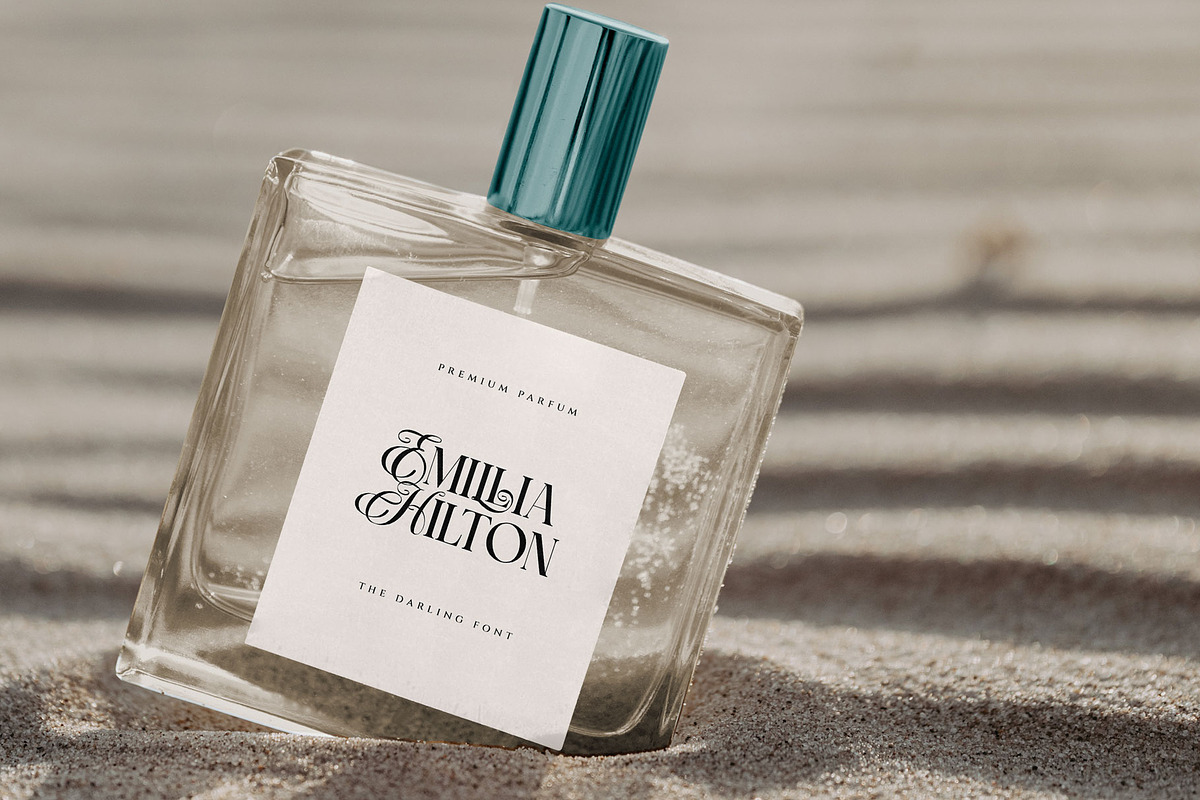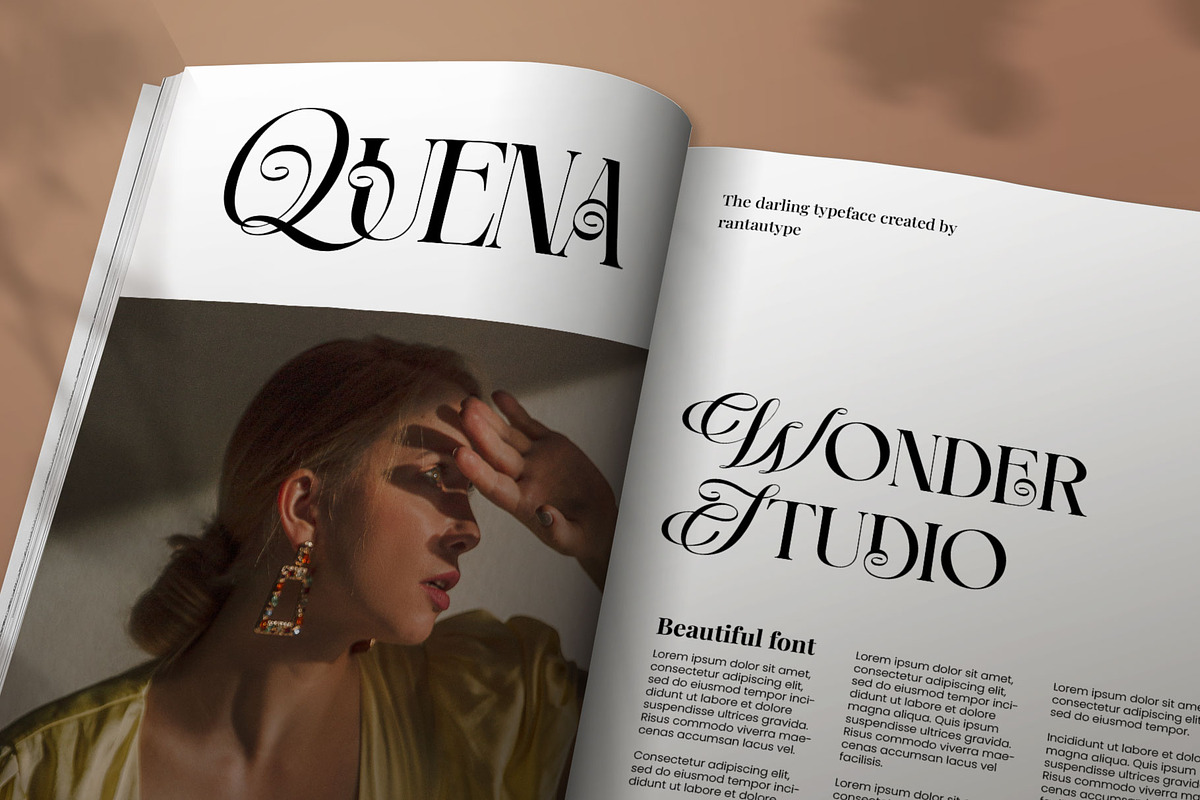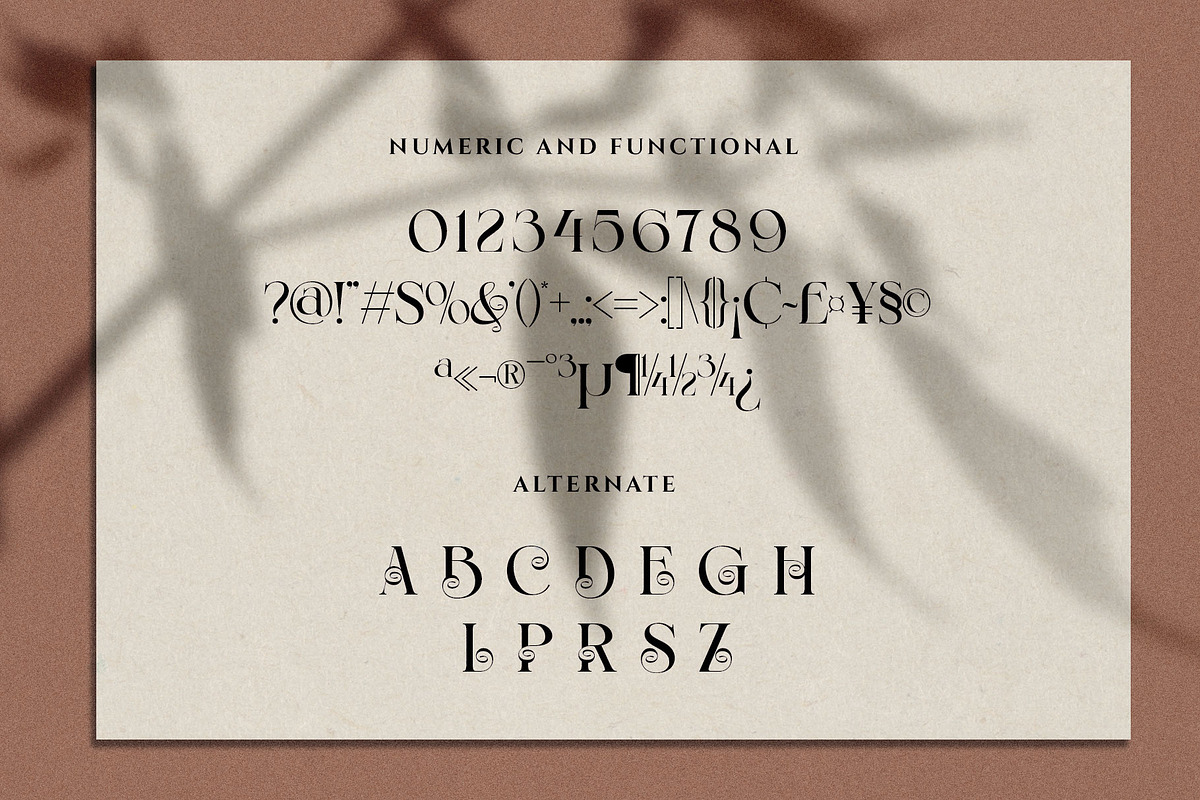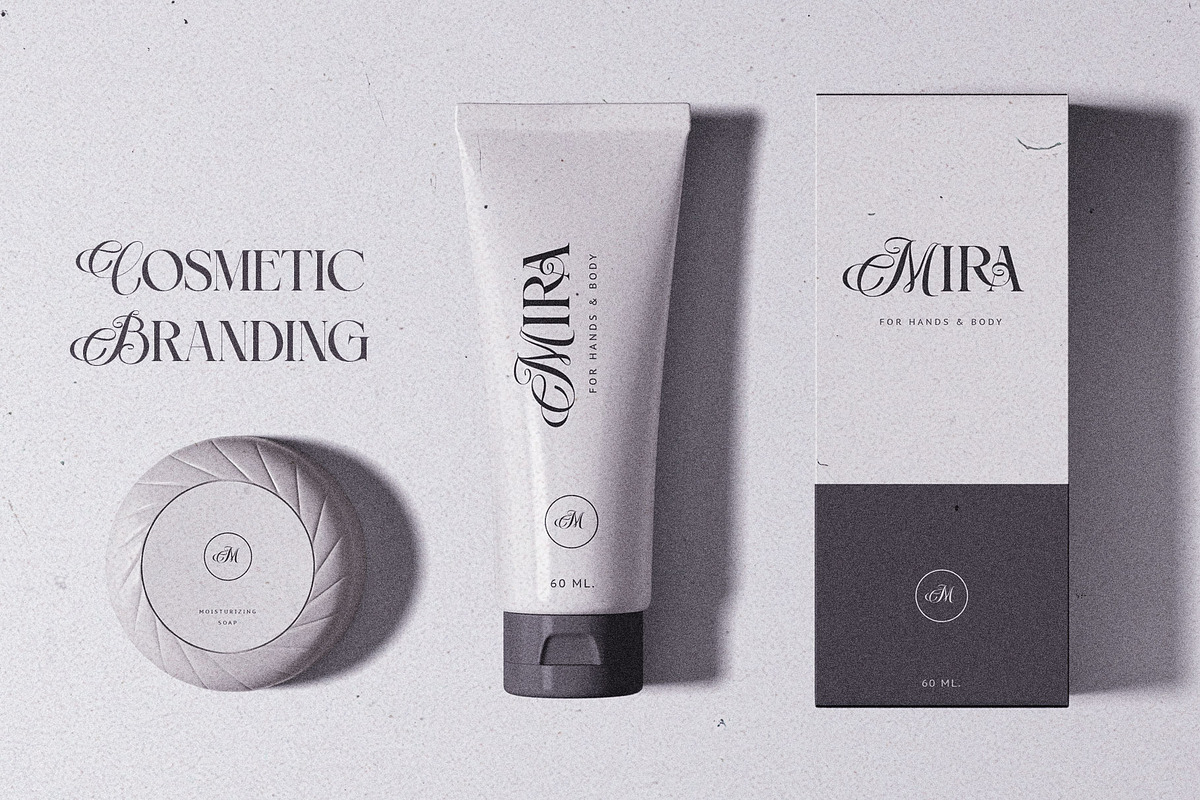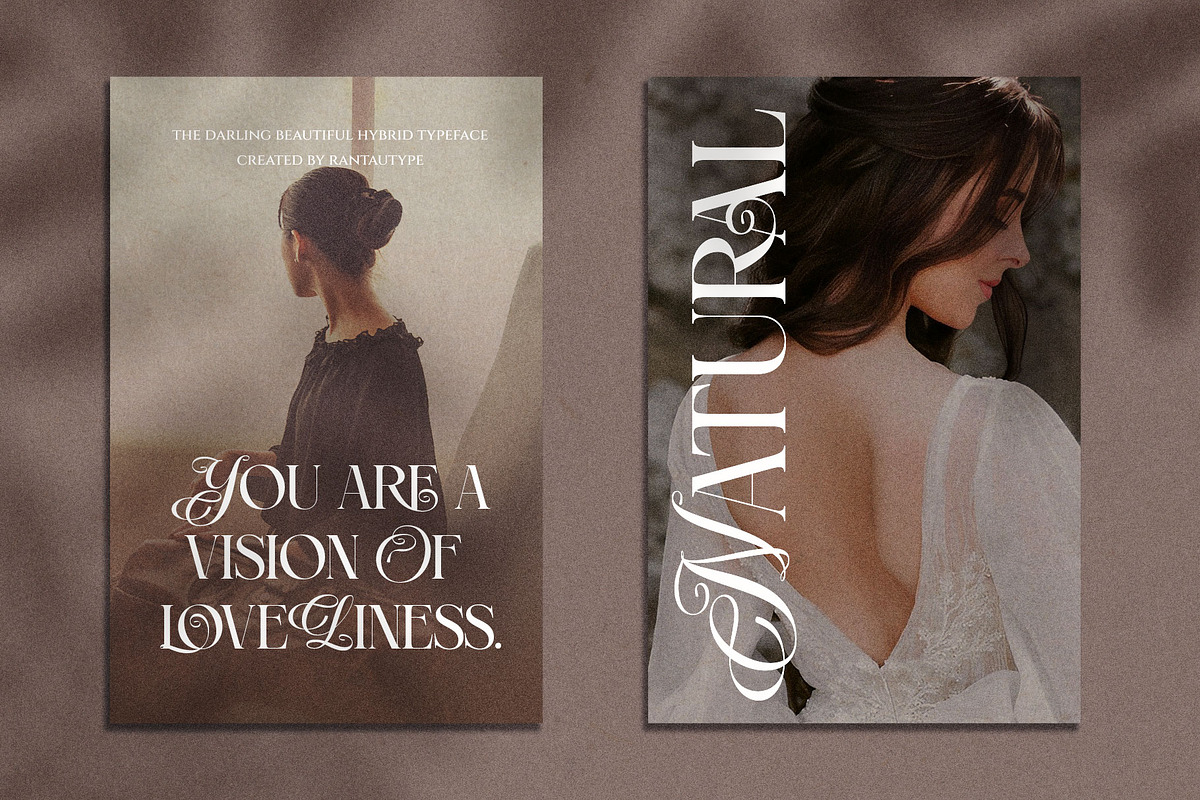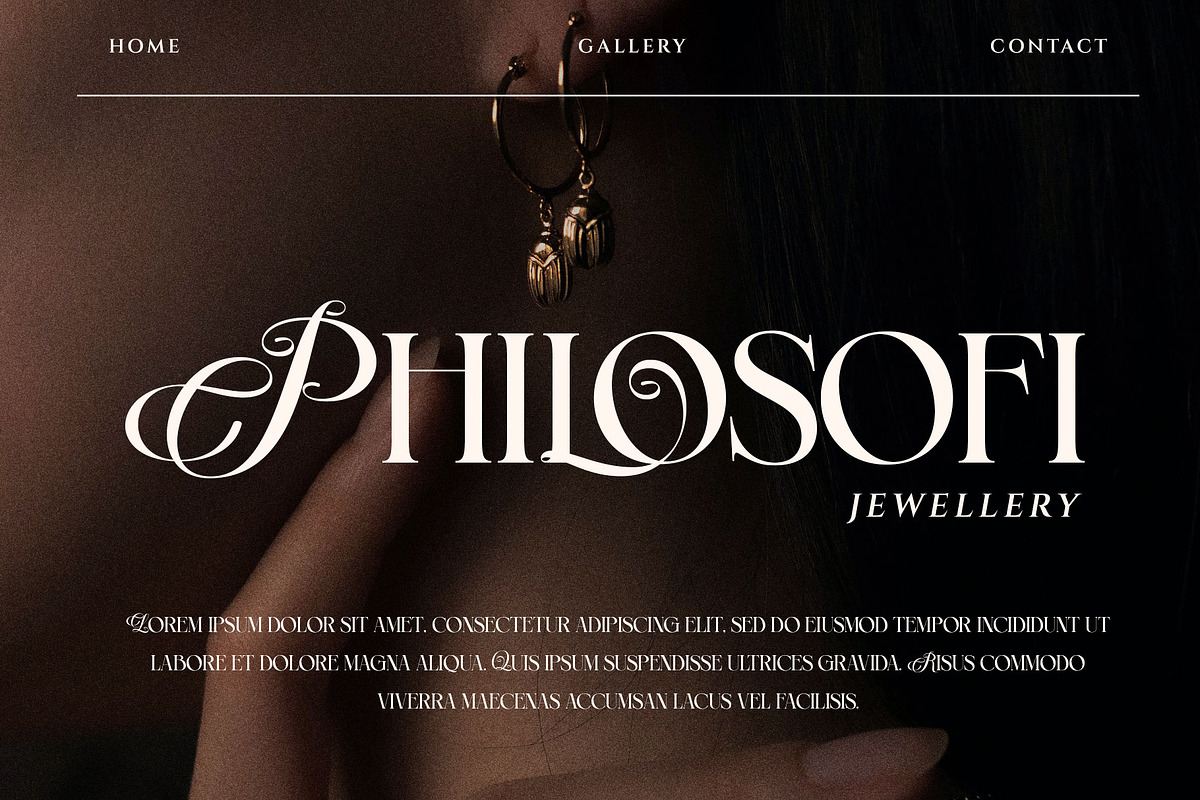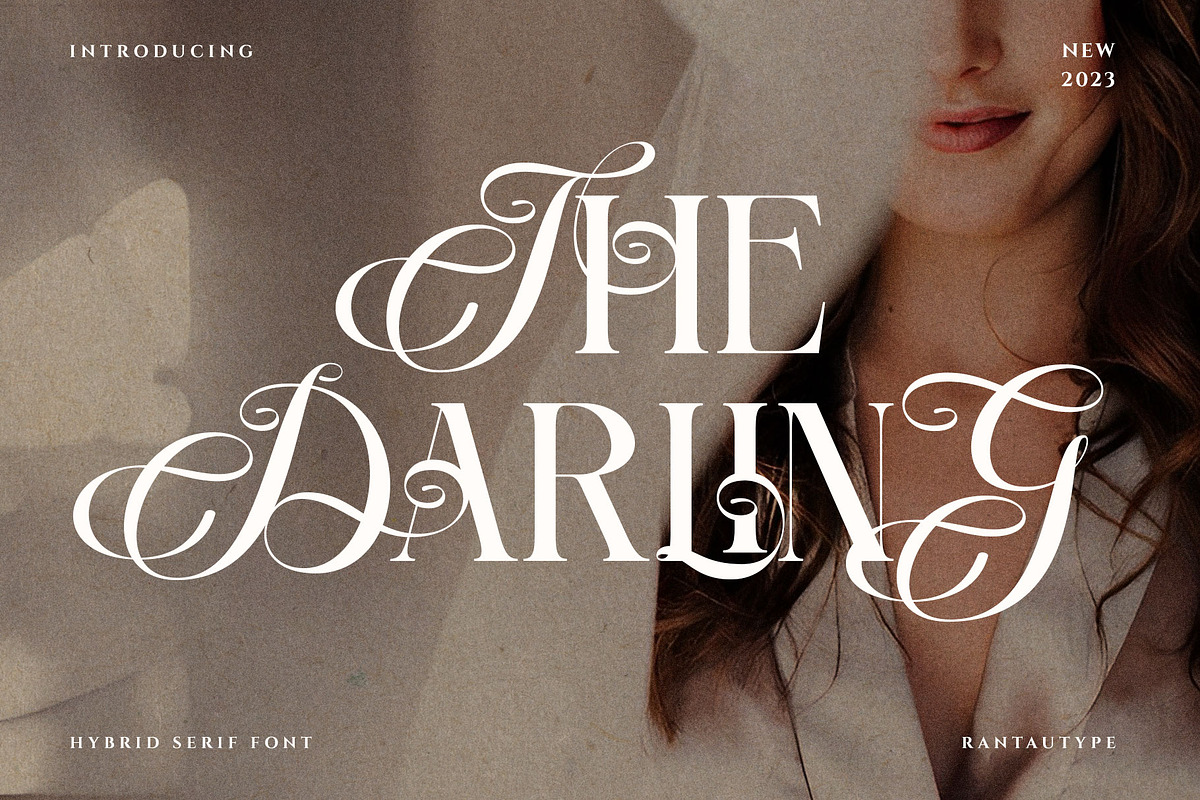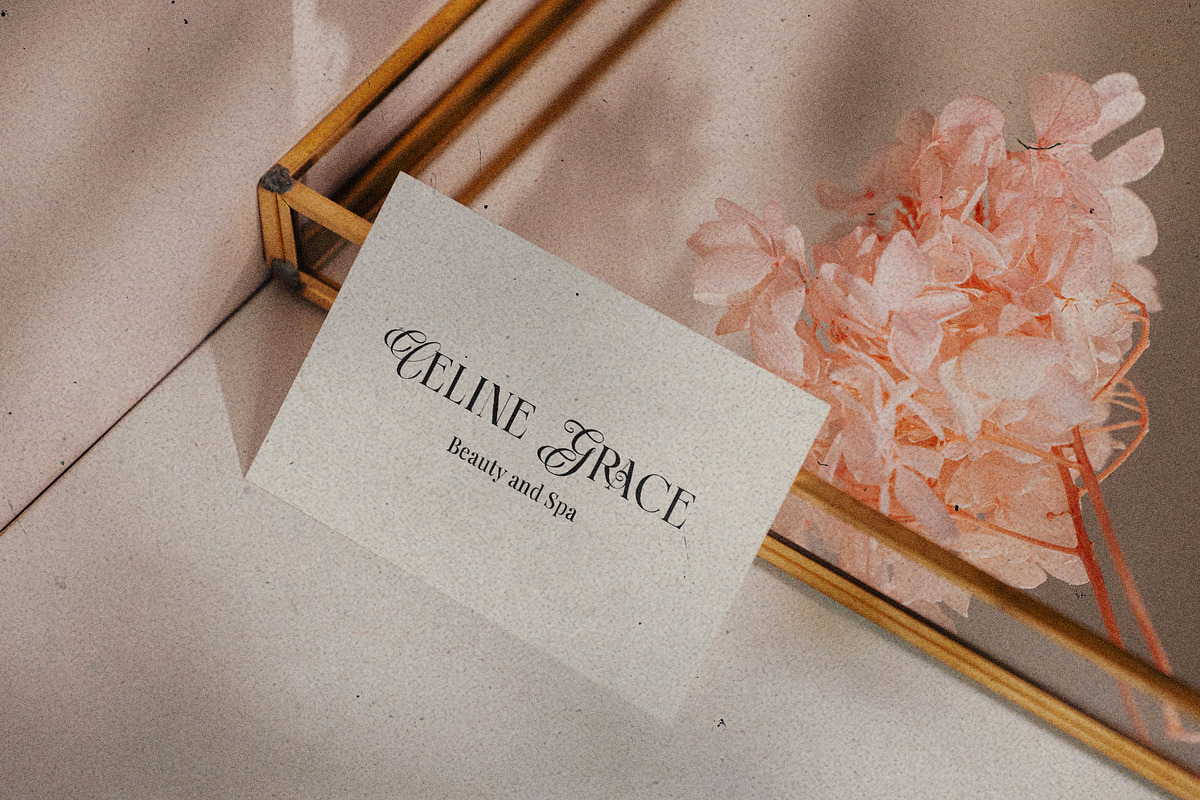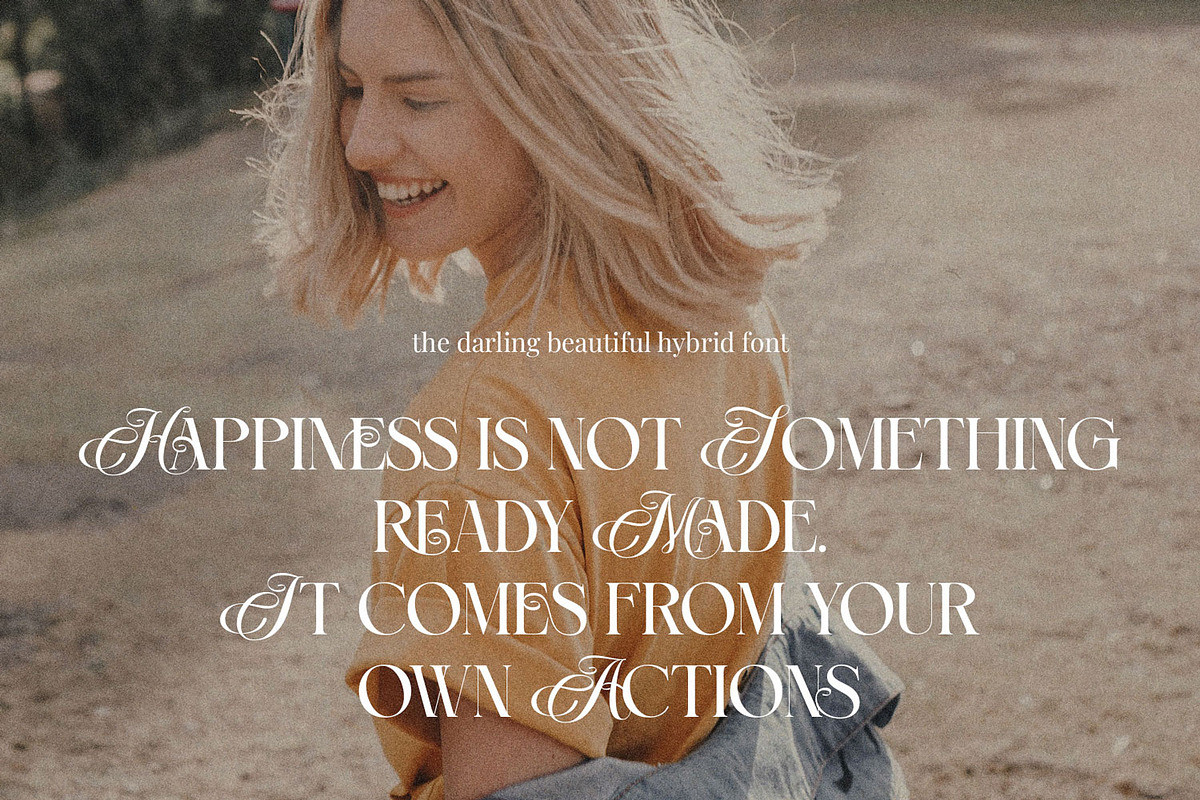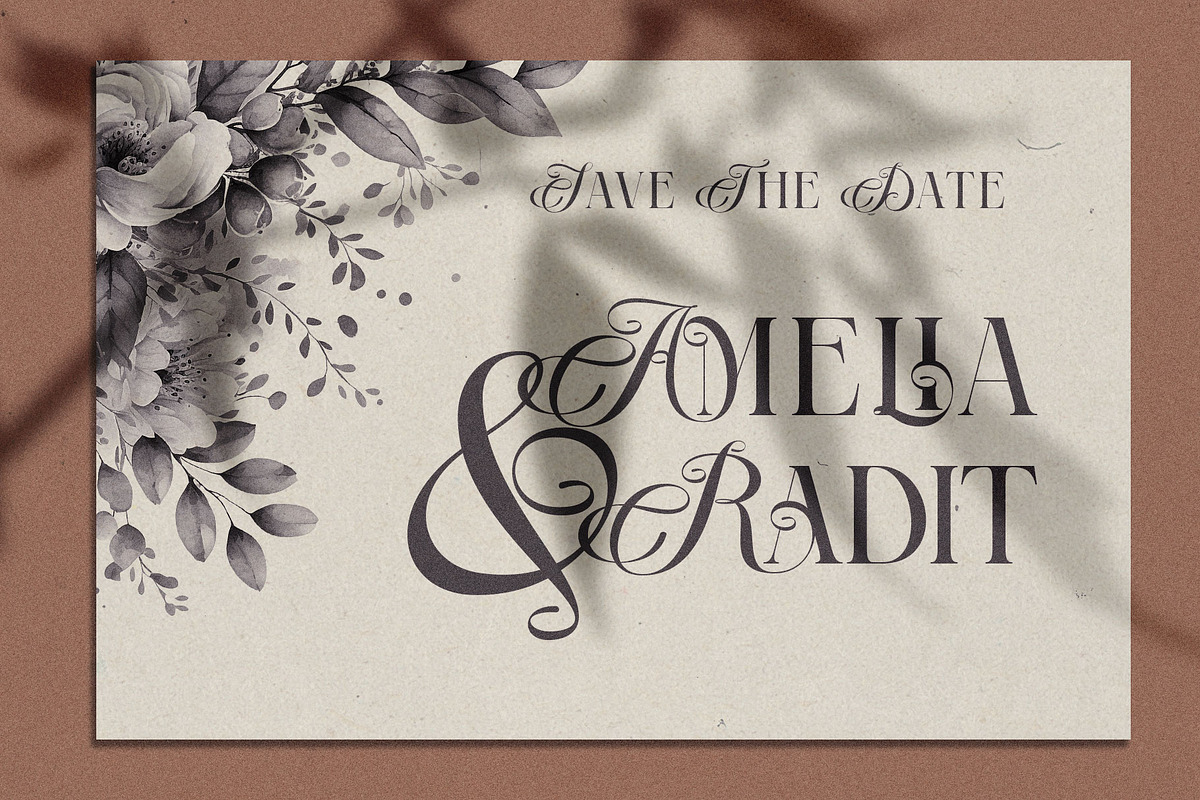
The Darling Beautiful Hybrid Serif
The Darling is a beuatiful and inspiring mix of classic calligraphy and modern serif. I've also love combination the calligraphy and serif make classic and nostalgic. The Darling brings a touch of charm and sophistication to branding, editorial designs, and more.
The Darling made mainly for headlines, titles, and is well-suited for advertising, vintage mood board, branding, logotypes, packaging, titles, editorial design, modern logos, websites, social media quotes, wedding branding, modern and vintage design. Now you can choice The Darling to make a beuatiful design.
- Standart character A-Z and a-z
- Beautiful Alternate
- Unique 100+ Ligature
- International Multilinggual Support